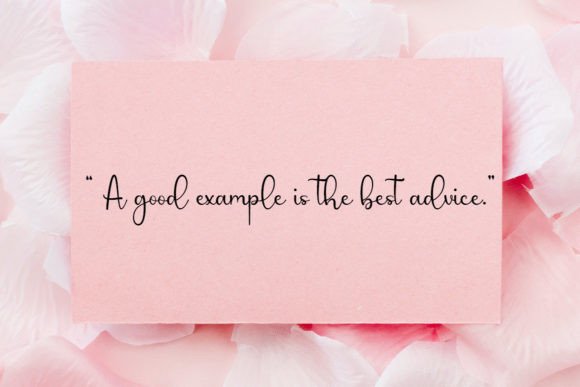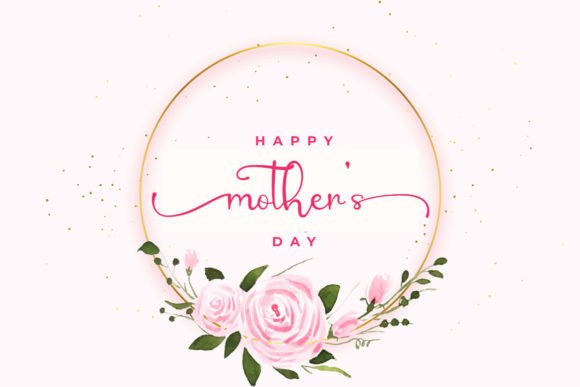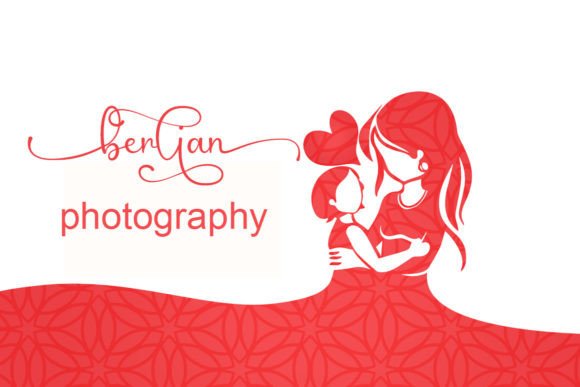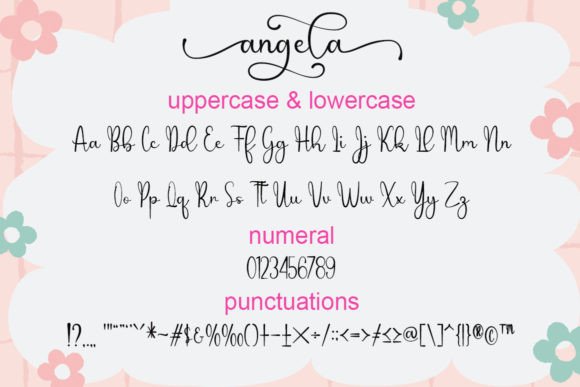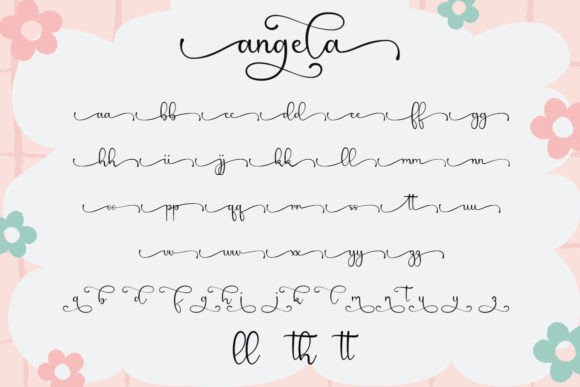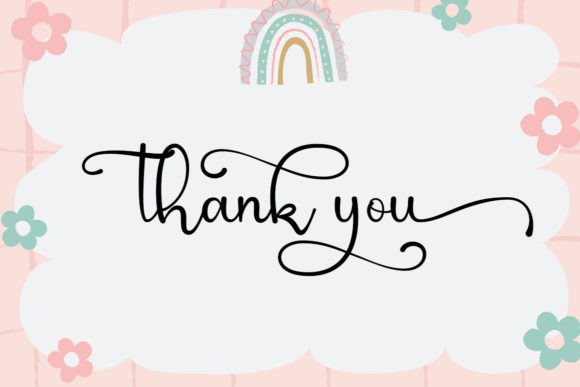
Discover the Enchanting Angela Font: Elevate Your Designs with Elegance
Are you on the hunt for a font that can add a touch of magic to your designs? Look no further than Angela Font, a beautiful handwritten script font that is perfect for a wide range of creative projects. From logos and branding to quotes, clothing, tote bags, business cards, and websites, Angela Font is the ideal choice for designers and crafters looking to add a level of sophistication and elegance to their work.
What Makes Angela Font So Special?
Angela Font is more than just a font – it’s an enchanting handwritten script that can bring a touch of personality and whimsy to any design. With its flowing lines and delicate curves, Angela Font is perfect for creating beautiful and eye-catching designs that are sure to stand out. Whether you’re working on a logo, a website, or a marketing campaign, Angela Font is the perfect choice for adding a touch of elegance and sophistication.
One of the best things about Angela Font is its versatility. This beautiful font can be used for a wide range of projects, including:
- Logos and branding: Create a stunning logo that reflects your brand’s personality and style with Angela Font.
- Quotes and posters: Add a touch of elegance to your quotes and posters with Angela Font’s beautiful handwritten script.
- Clothing and tote bags: Create eye-catching designs for clothing and tote bags that are sure to stand out with Angela Font.
- Business cards and stationery: Add a touch of sophistication to your business cards and stationery with Angela Font.
- Websites and blogs: Use Angela Font to add a touch of elegance and personality to your website or blog.
Angela Font is PUA (Private Use Area) encoded, which means that you can access all the glyphs and ligatures with ease. This makes it easy to get the most out of this beautiful font and create stunning designs that are sure to impress. With PUA encoding, you can:
- Access a wide range of glyphs and ligatures to add variety and interest to your designs.
- Easily switch between different characters and symbols to create unique and eye-catching designs.
- Save time and effort by having access to all the characters and symbols you need in one place.
Why Designers and Crafters Love Angela Font
Angela Font has quickly become a favorite among designers and crafters, and it’s easy to see why. This beautiful font offers a range of benefits, including:
- Elegance and sophistication: Angela Font adds a touch of elegance and sophistication to any design.
- Versatility: Angela Font can be used for a wide range of projects, from logos and branding to quotes and posters.
- Ease of use: Angela Font is PUA encoded, making it easy to access all the glyphs and ligatures you need.
- Unique and eye-catching designs: Angela Font’s beautiful handwritten script makes it easy to create unique and eye-catching designs that are sure to stand out.
Get Ready to Fall in Love with Angela Font